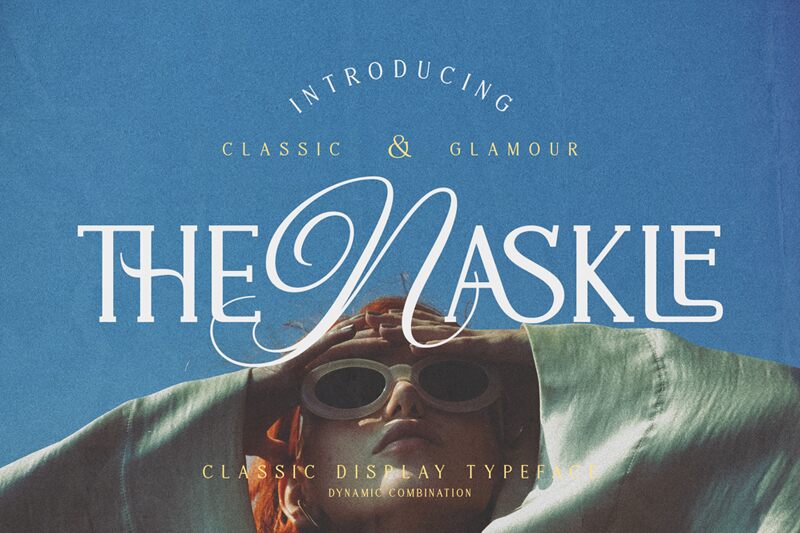
Thenaskle, crafted by the talented Alit Design, is a captivating serif font that exudes elegance and sophistication. With its semi-light weight, it strikes the perfect balance between delicacy and legibility.
This versatile typeface is ideal for print designs such as high-end editorials, fashion magazines, and luxurious branding projects. Its refined aesthetic complements prestigious invitations and event stationery flawlessly. Whether you're creating a timeless logo or designing a classy website, Thenaskle will effortlessly elevate your project with its graceful curves and timeless charm.